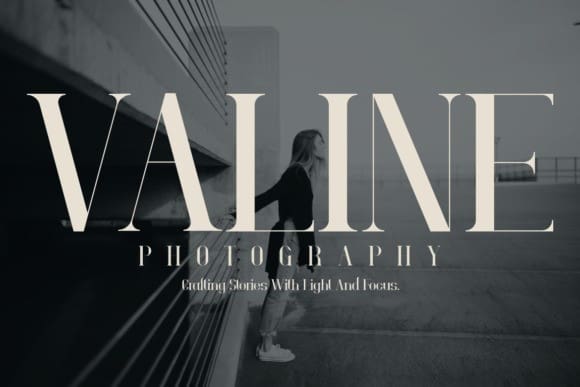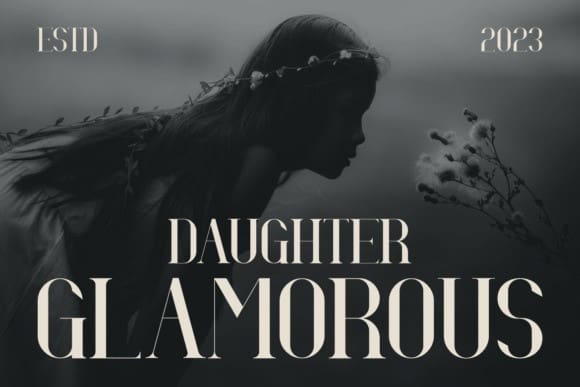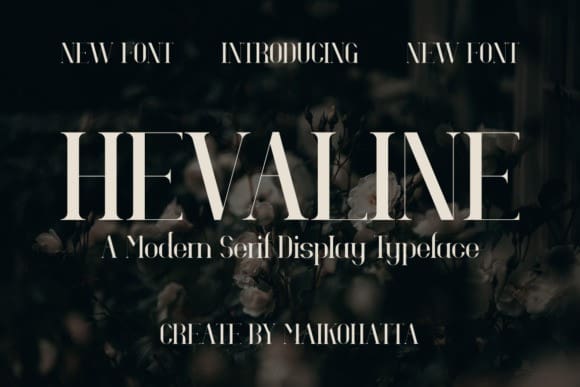
Hevaline Font
Hevaline Font, this font is a typographic masterpiece that harmonizes elegance and sharpness. Every letter within this font is meticulously designed, with a keen focus on balanced proportions and impeccable alignment. This font is well-suited for a variety of contexts, such as print design, promotional materials, or magazine layouts.